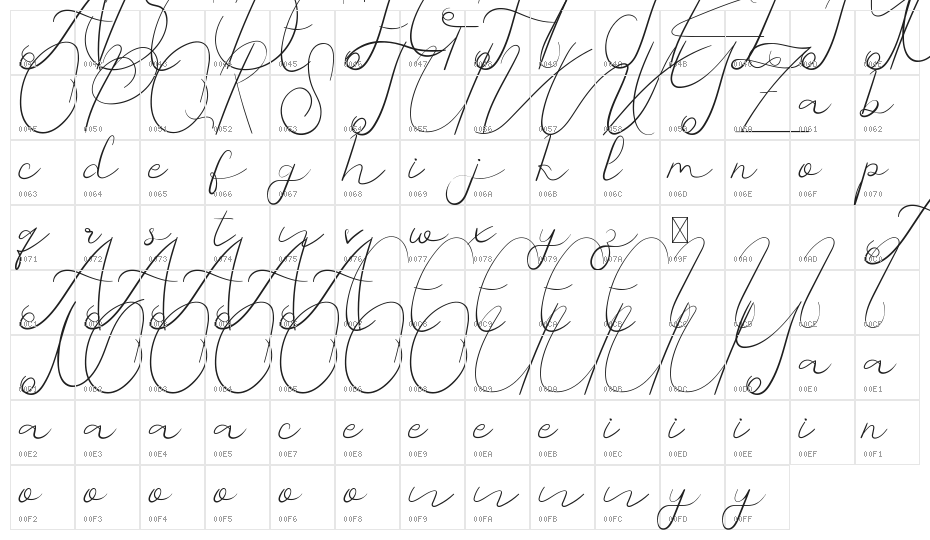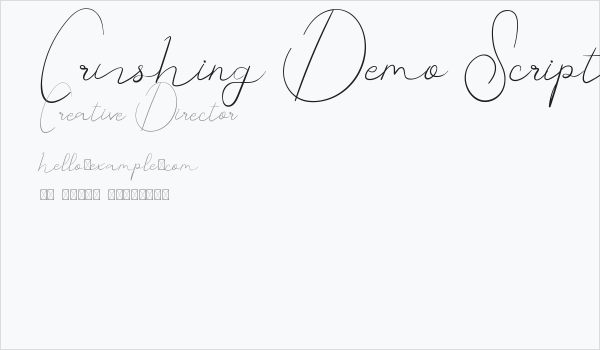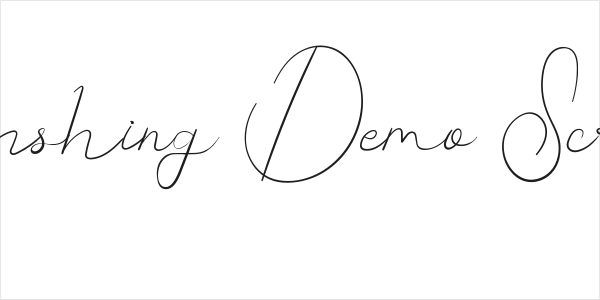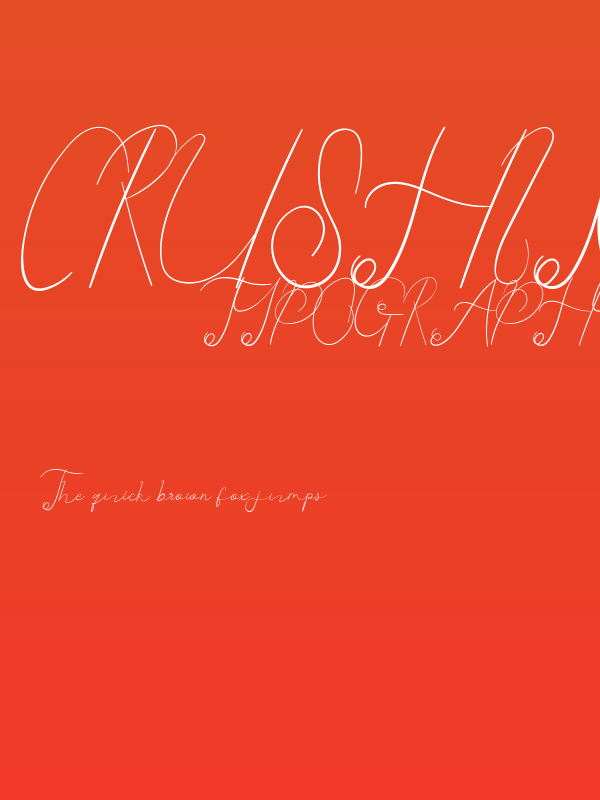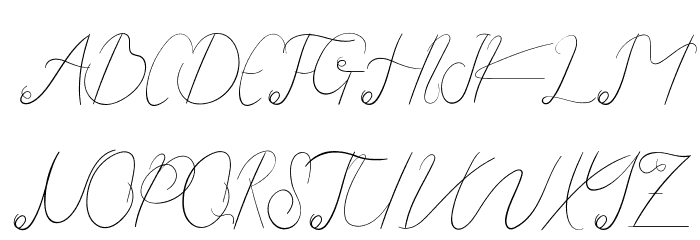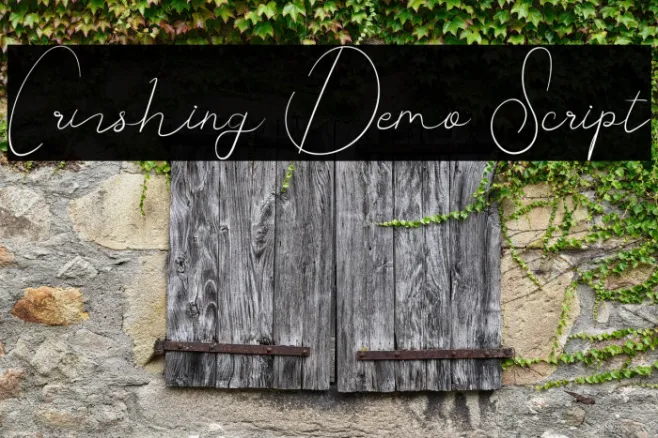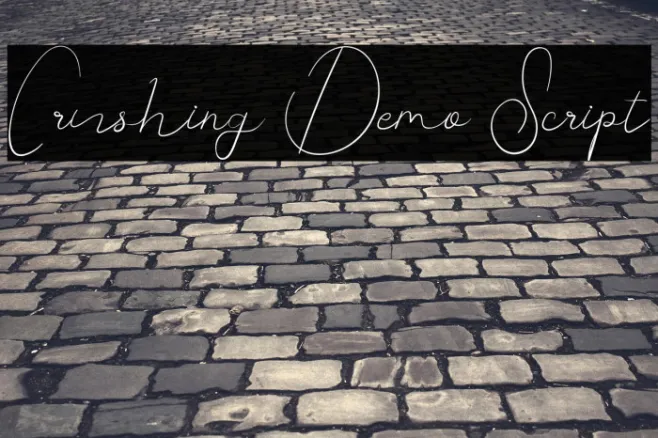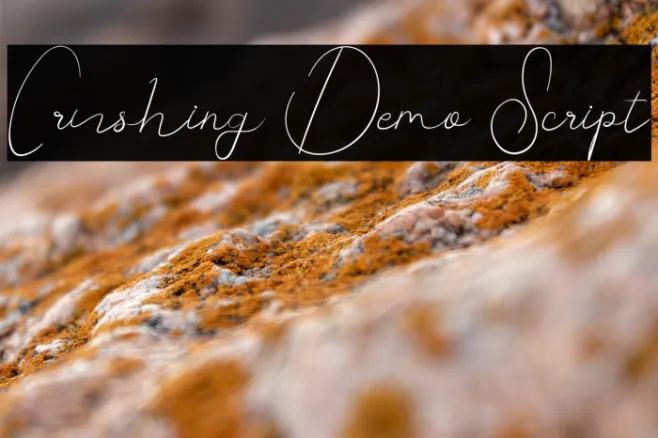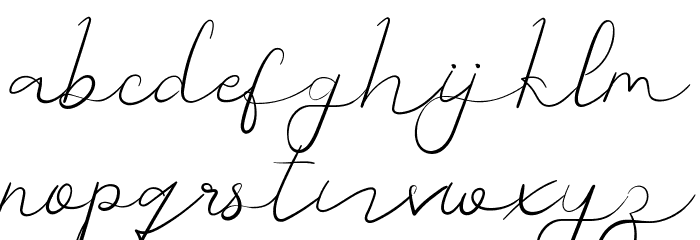
Crushing Demo Script Font
Crushing Demo Script Description
This elegant script font features delicate, flowing lines that mimic the fluidity of handwriting. The characters are connected with graceful loops and swirls, creating a sense of movement and sophistication. The uppercase letters are particularly ornate, with exaggerated flourishes that add a touch of drama. The lowercase letters maintain a consistent style, offering a harmonious blend of curves and angles. This font exudes a sense of elegance and refinement, making it ideal for formal invitations, branding, and any project that requires a touch of class. Its thin strokes and high contrast give it a light and airy feel, while the intricate details ensure it stands out.